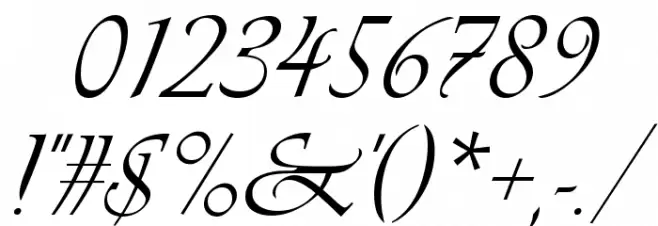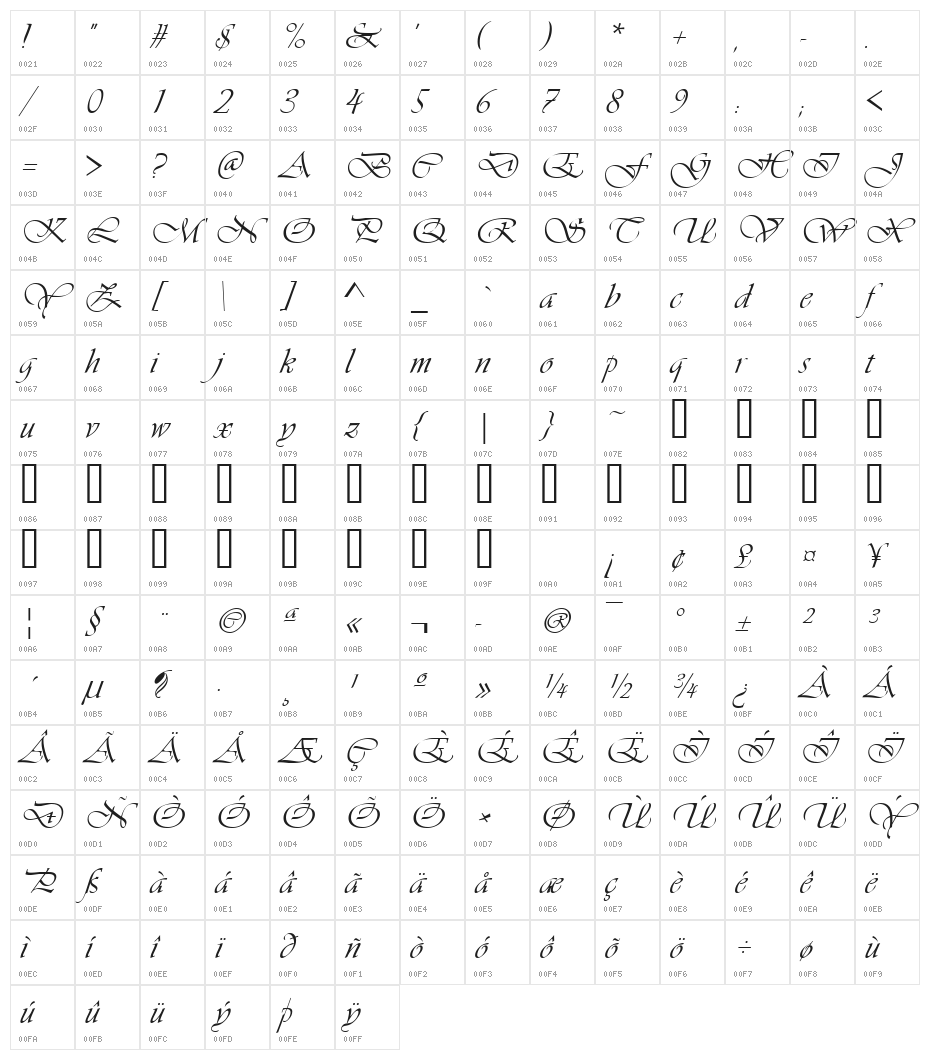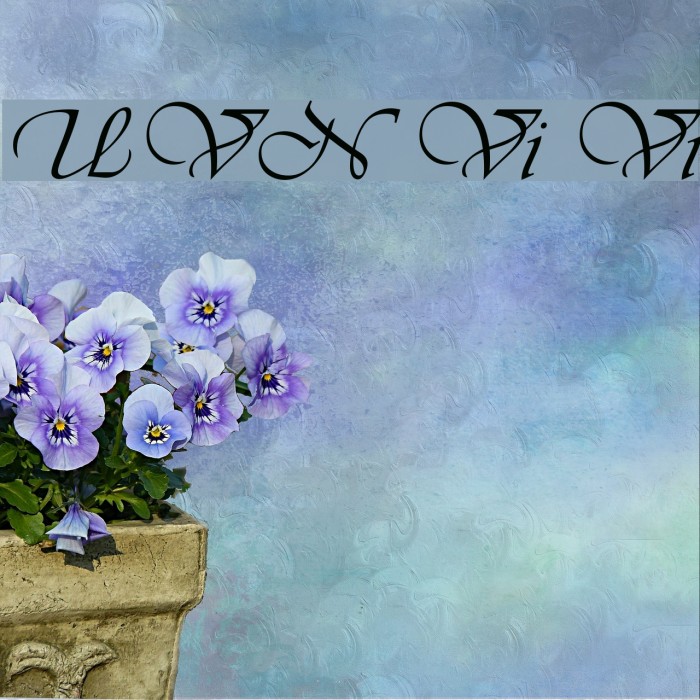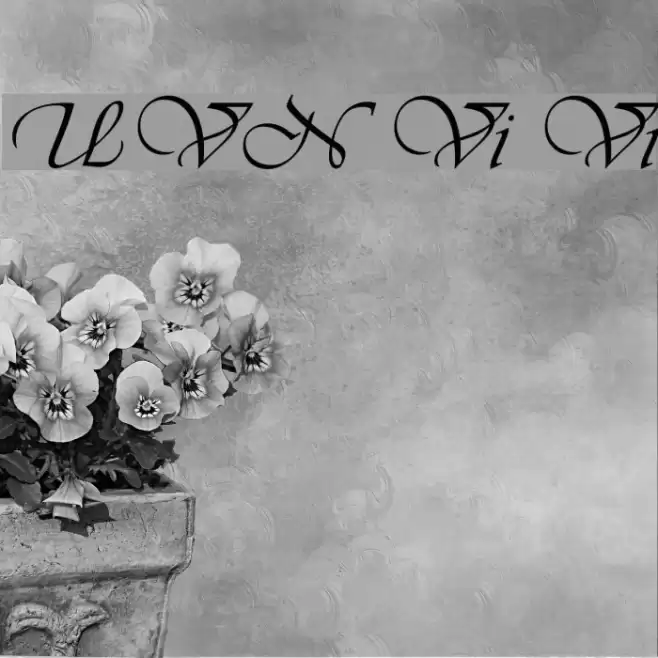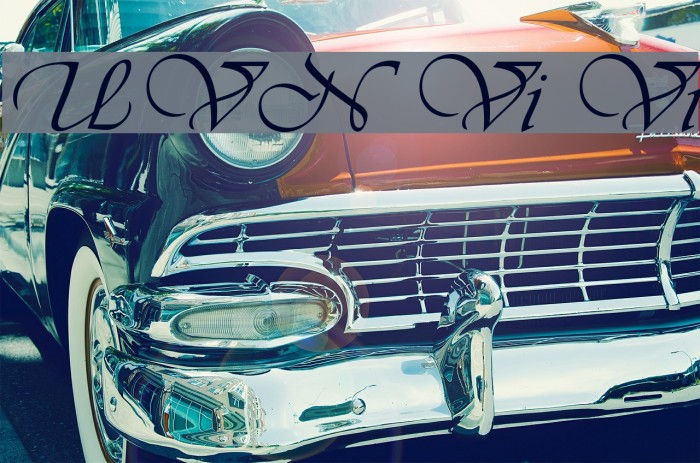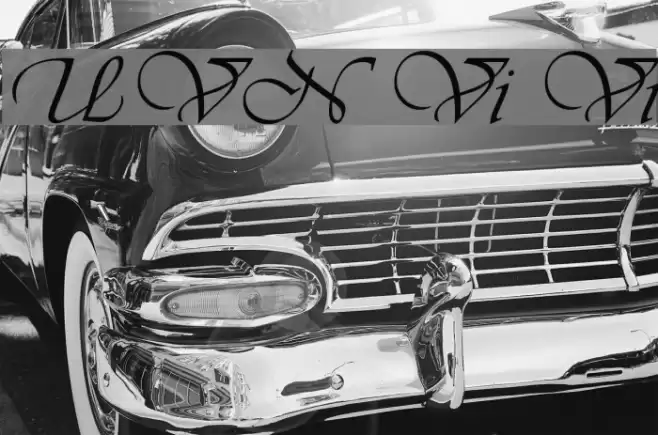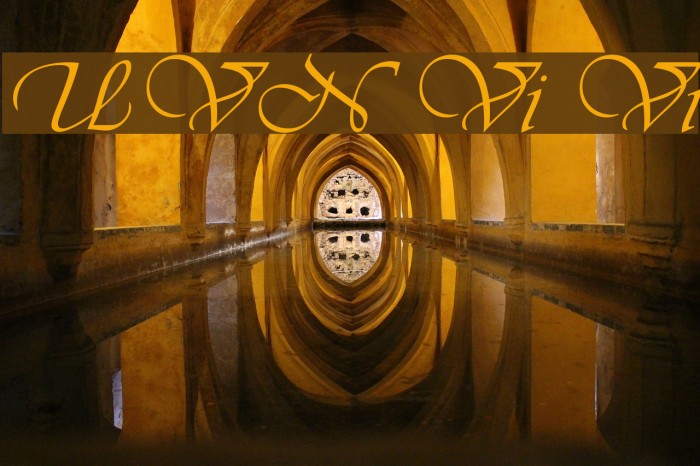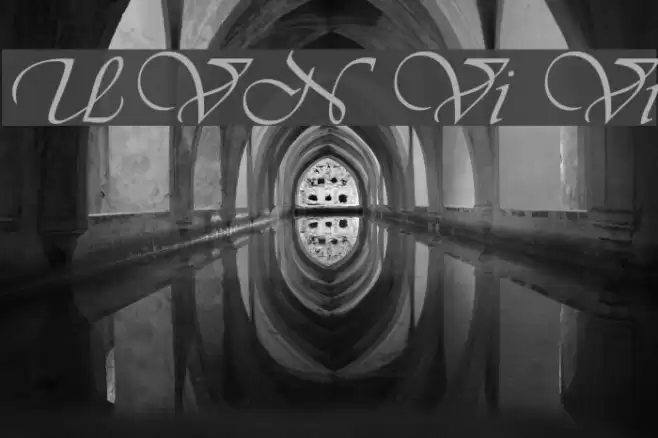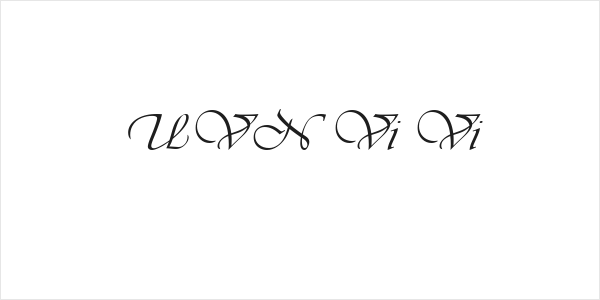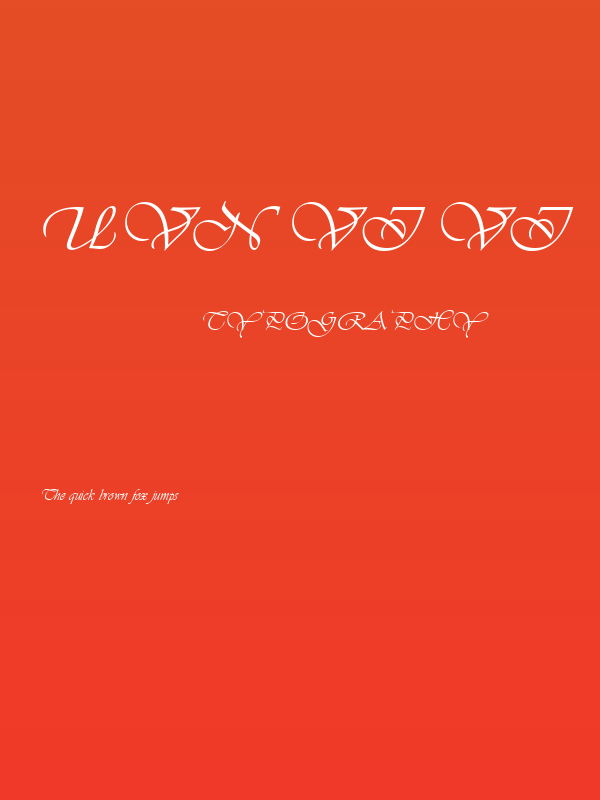
UVN Vi Vi Font
UVN Vi Vi Description
This font exhibits a sophisticated and elegant cursive style, characterized by its flowing, interconnected letterforms. The uppercase letters are ornate, with intricate loops and flourishes that add a touch of grandeur. The lowercase letters maintain a smooth, fluid motion, enhancing readability while preserving the decorative nature. The numerals are consistent with the overall style, featuring slight curves and a balanced weight. Special characters are designed with similar attention to detail, ensuring a cohesive appearance across all glyphs. The font's artistic flair makes it suitable for projects that require a touch of elegance and sophistication.